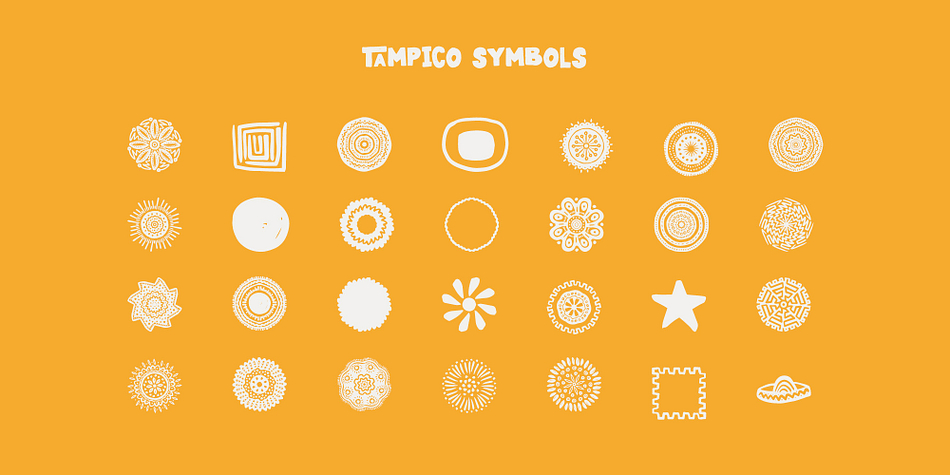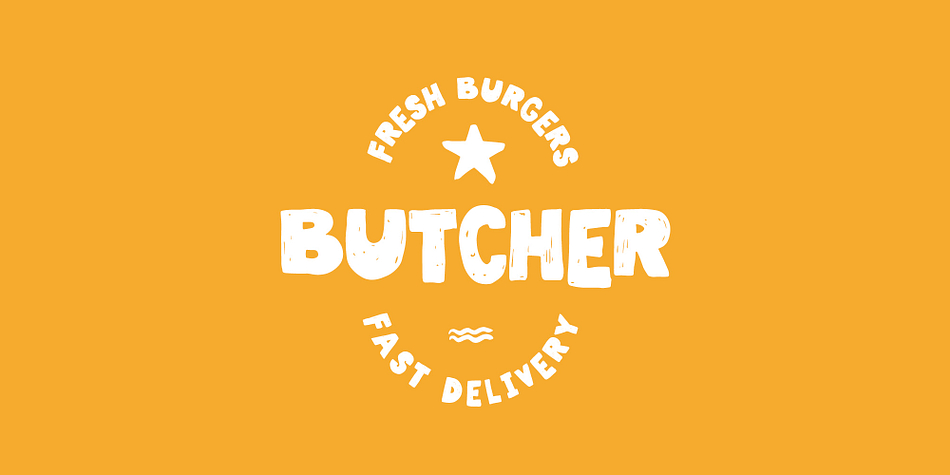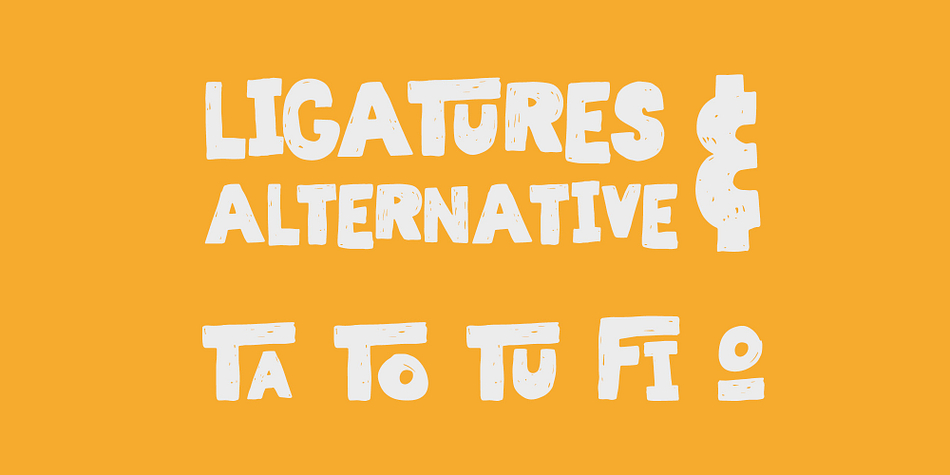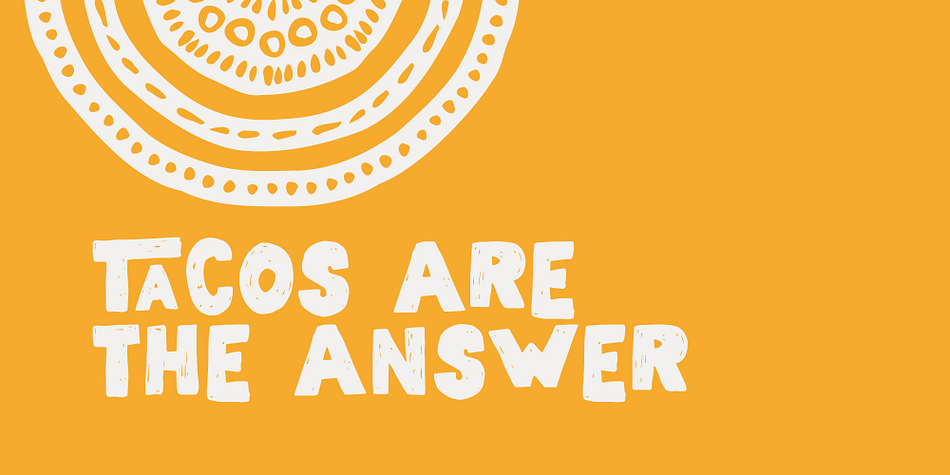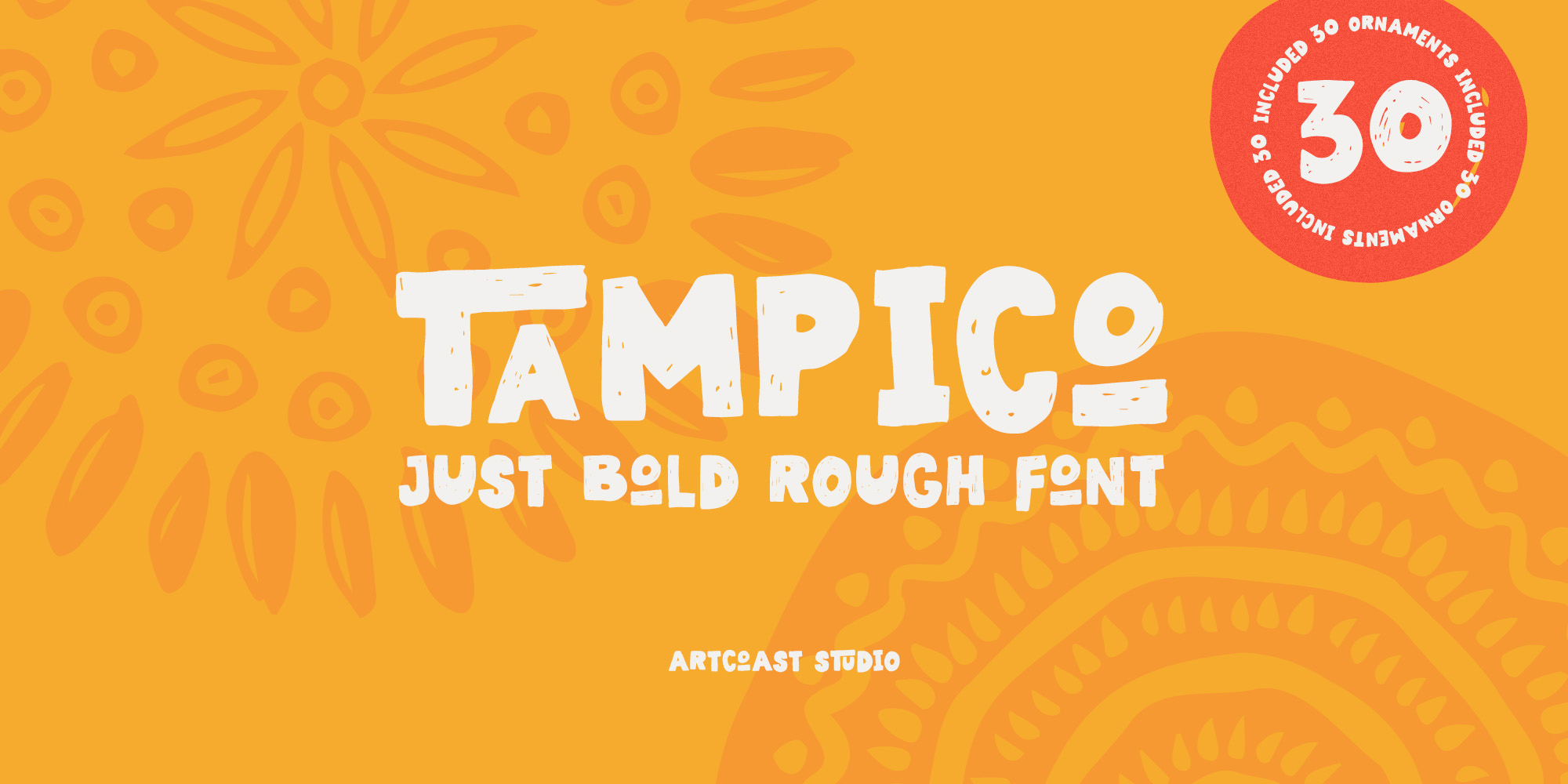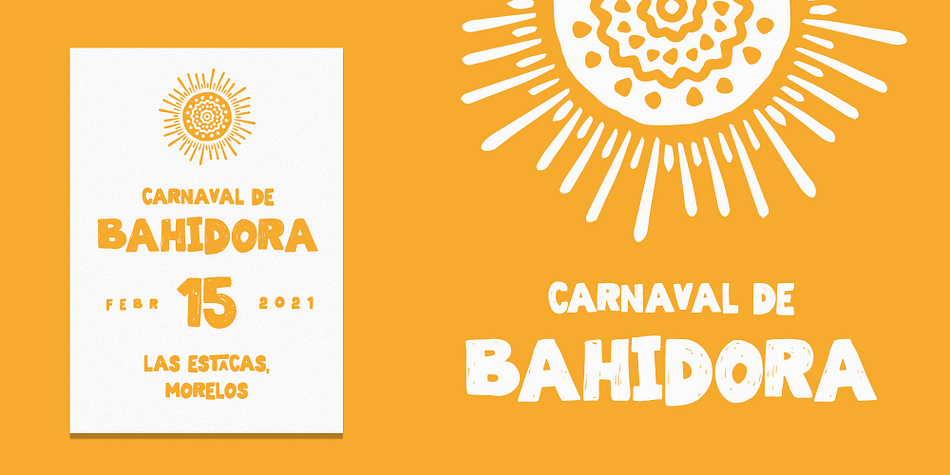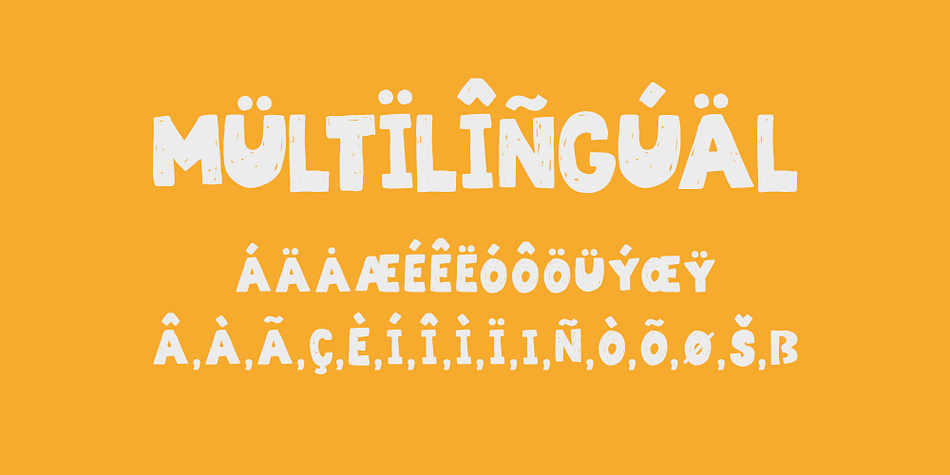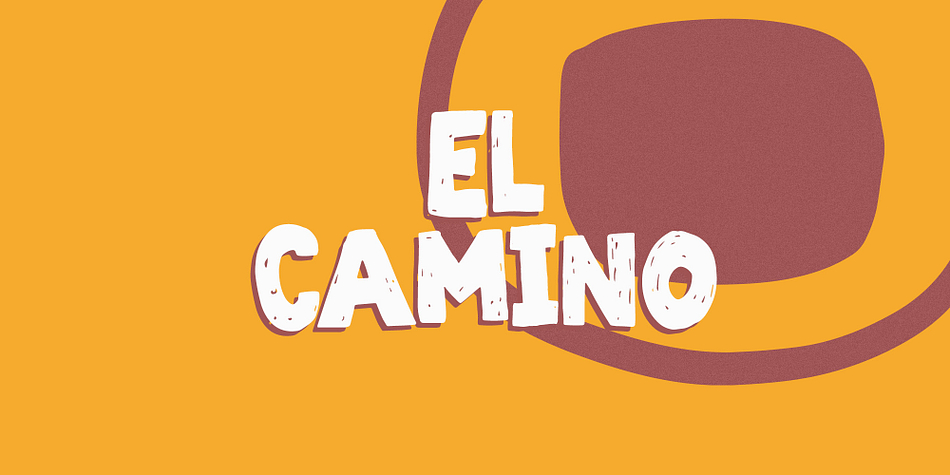
Designed by Dmitry Mashkin, SA Tampico is a hand display, hand drawn and dingbat font family. This typeface has two styles and was published by ArtCoast.
Tampico Typeface is a new font with Rough version, which includes 80+ glyphs and alternative characters. The font looks great on various packages, goods with food. You can also use it to create logos, shortcuts and other design elements. With the font in the kit are kraft logos.
Accents (Multilingual characters)
Stylistic Alternates